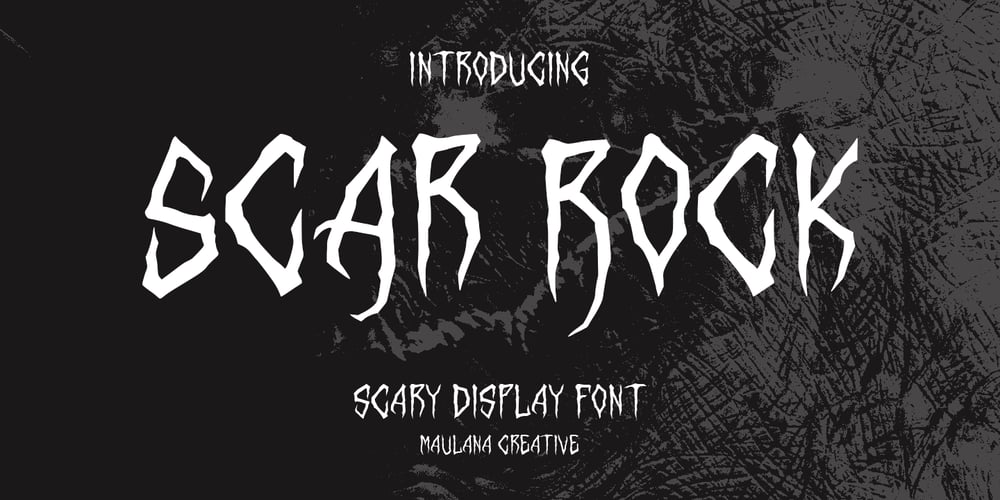
MC Scar Rock Font Family was designed by Gilang Maulana and published by Maulana Creative. MC Scar Rock contains 1 styles and family package options. Scar Rock Scary Display Font.Scar Rock scary display font. Heavy stroke, fun character with a bit of ligatures. To give you an extra creative work. Scar Rock scary display font support multilingual more than 100+ language. This font is good for logo design, Social media, Movie Titles, Books Titles, a short text even a long text letter and good for your secondary text font with script or serif. Make a stunning work with Scar Rock scary display font. Cheers, Maulana Creative